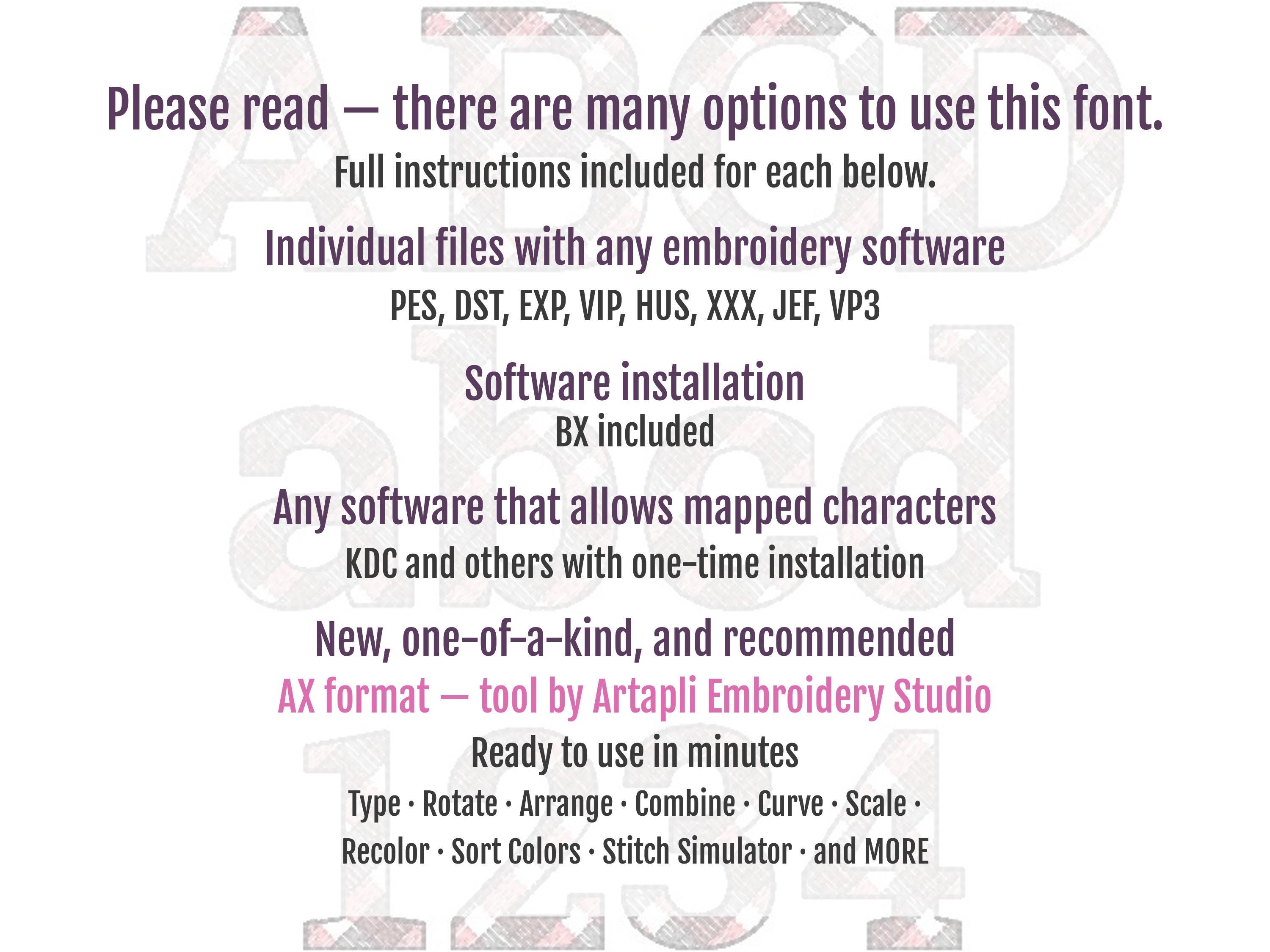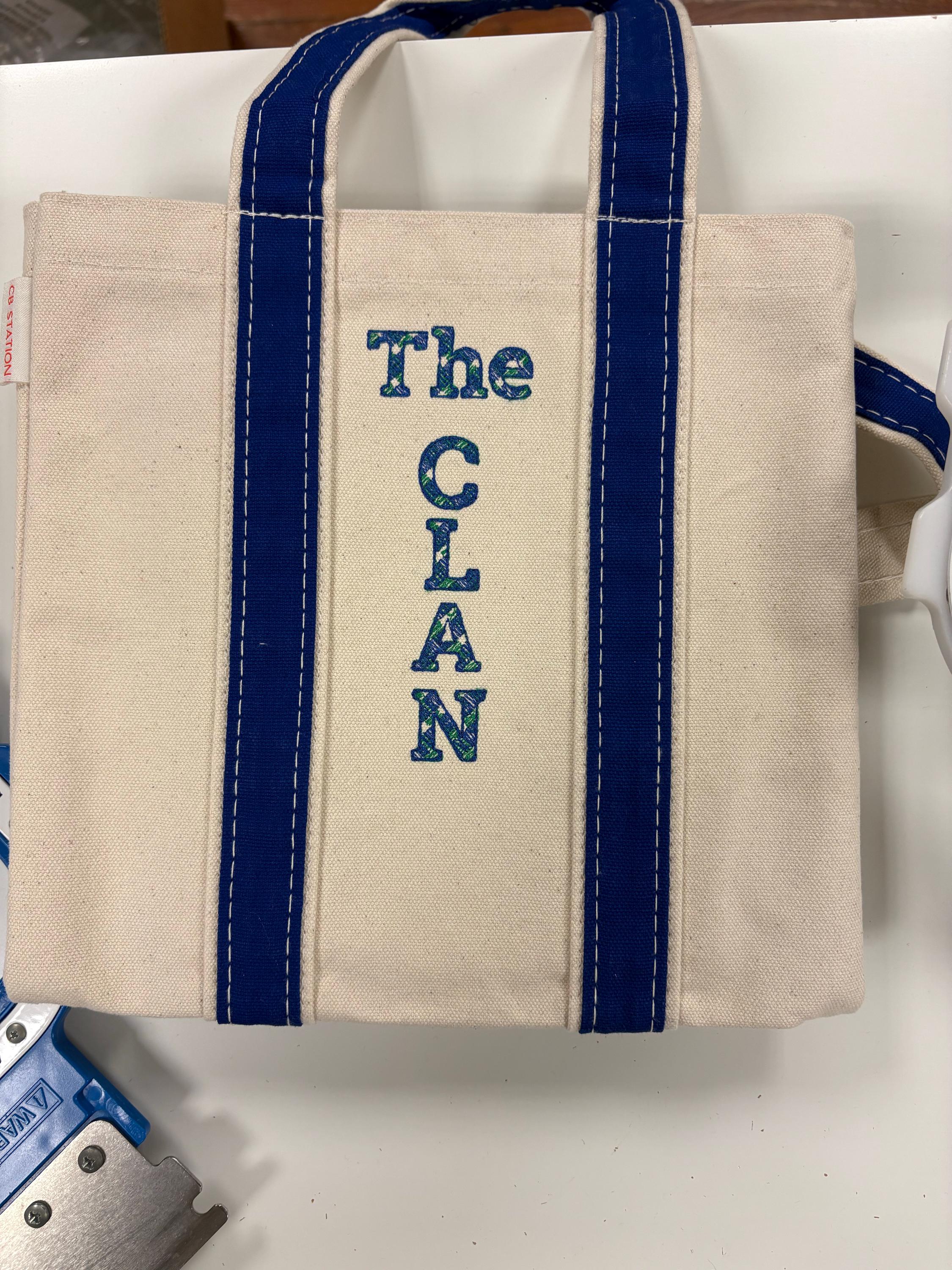
MINI Buffalo Tartan Font plaid gingham light sketch outline alphabet letters machine embroidery designs many small sizes up to 2.8in BX incl
MINI Buffalo Tartan Font plaid gingham light sketch outline alphabet letters machine embroidery designs in many small sizes up to 2.8 inches, BX included
This is a quick stitch design, looks like laces, the background fabric looks through. Stunning effect.
Gingham lines are part of the embroidery.
Uppercase and lowercase letters, numbers, punctuation & . , - ? / !